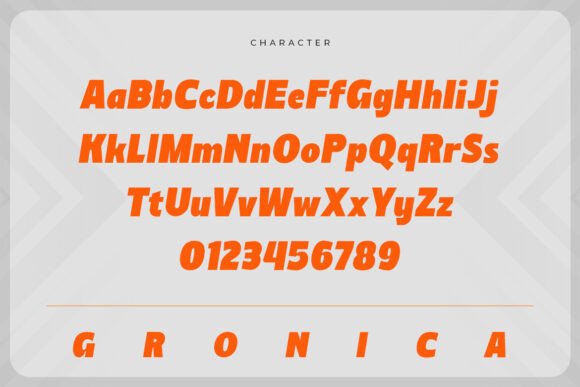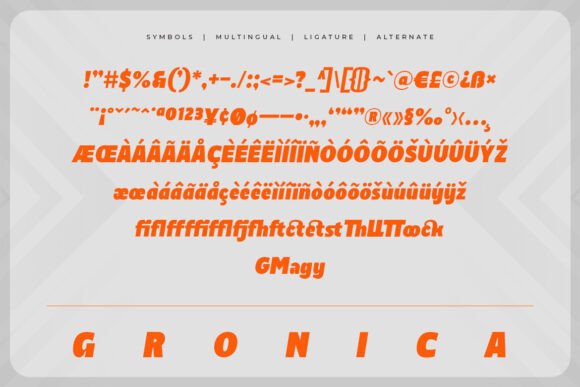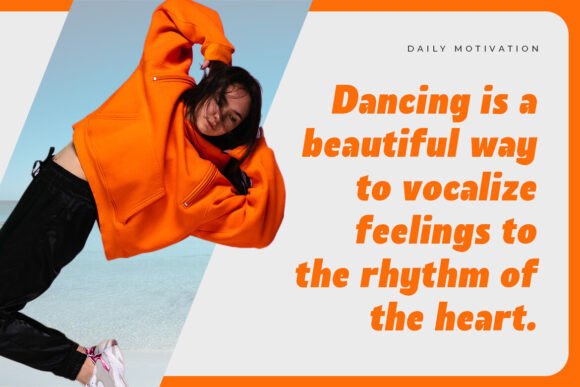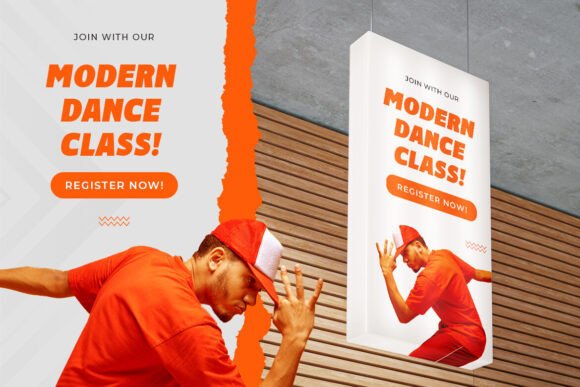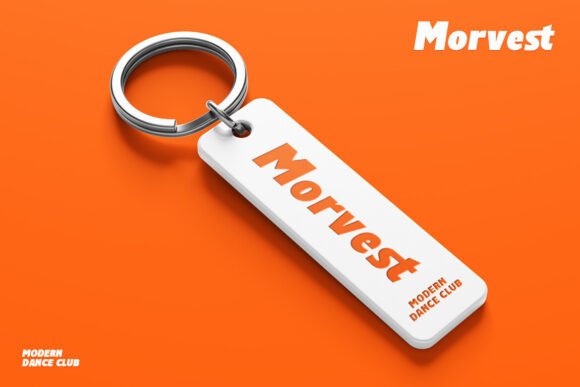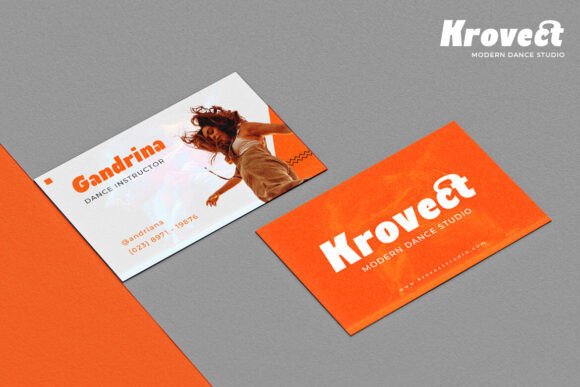
Unleashing the Power of Gronica Font: A Bold and Modern Sans Serif
In the world of typography, fonts play a crucial role in conveying messages, expressing emotions, and creating lasting impressions. Among the numerous fonts available, Gronica stands out as a bold and modern sans serif font that has been making waves in the design community. With its sturdy geometric forms, pristine lines, and authoritative charisma, Gronica has become an irresistible choice for designers and crafters looking to create striking headlines, memorable logos, commanding posters, and impactful branding.
The Design Philosophy of Gronica
Gronica’s design philosophy revolves around the synthesis of modernity and authority. Each character is carefully crafted to unleash a profound potency, making it perfect for designers who want to create a lasting impact. The font’s geometric forms and clean lines give it a distinctly modern look, while its bold and confident appearance exudes authority and charisma. Whether you’re designing a logo, poster, or brand identity, Gronica ensures that your message takes center stage with assurance and flair.
Key Features of Gronica Font
Gronica boasts several key features that make it an attractive choice for designers:
- Bold and Modern Design: Gronica’s sans serif design is both bold and modern, making it perfect for creating striking headlines and attention-grabbing branding.
- Geometric Forms and Pristine Lines: The font’s geometric forms and clean lines give it a crisp and professional appearance, making it suitable for a wide range of design applications.
- Authoritative Charisma: Gronica’s bold and confident appearance exudes authority and charisma, ensuring that your message is conveyed with assurance and impact.
- Flexibility: Gronica is equally effective for print and digital platforms, offering unparalleled flexibility without sacrificing its audacious, attention-grabbing aesthetic.
Applications of Gronica Font
Gronica’s versatility makes it suitable for a wide range of design applications, including:
- Headlines and Titles: Gronica’s bold and modern design makes it perfect for creating striking headlines and titles that grab attention.
- Logo Design: The font’s geometric forms and clean lines make it an excellent choice for creating memorable logos that convey authority and charisma.
- Posters and Flyers: Gronica’s commanding presence makes it ideal for creating posters and flyers that demand attention.
- Branding and Identity: The font’s authoritative charisma and modern design make it perfect for creating impactful branding and identity designs.
Why Choose Gronica Font?
With so many fonts available, why choose Gronica? Here are a few compelling reasons:
- Unique and Memorable: Gronica’s bold and modern design ensures that your message stands out and leaves a lasting impression.
- Flexibility: The font’s versatility makes it suitable for a wide range of design applications, from print to digital platforms.
- Authority and Charisma: Gronica’s authoritative charisma and modern design convey confidence and assurance, making it perfect for designers who want to create a lasting impact.
In conclusion, Gronica font is a bold and modern sans serif font that has been designed to unleash a profound potency with each individual character. Its synthesis of sturdy geometric forms and pristine lines makes it an irresistible choice for designers and crafters looking to create striking headlines, memorable logos, commanding posters, and impactful branding. With its authoritative charisma, flexibility, and unique design, Gronica is the perfect choice for designers who want to create a lasting impression.